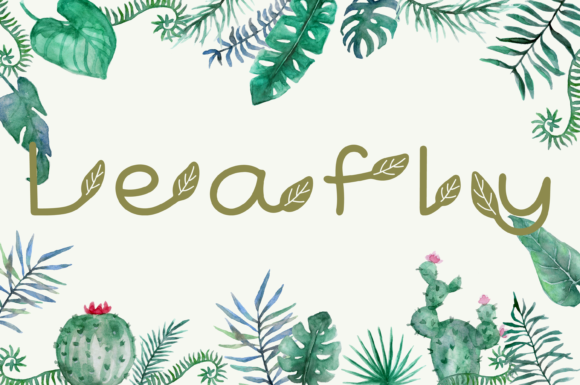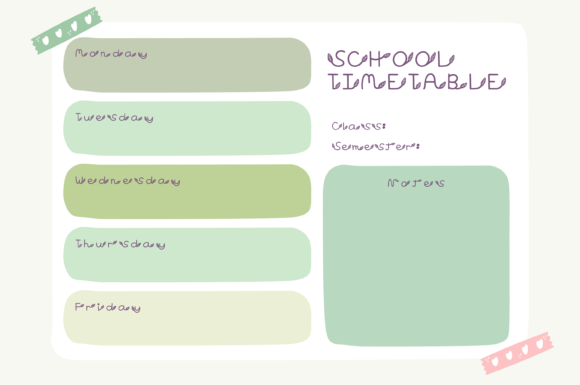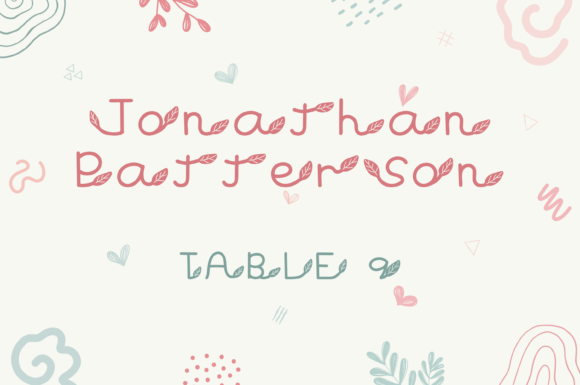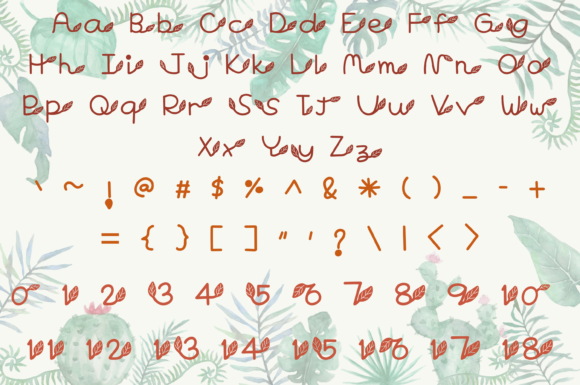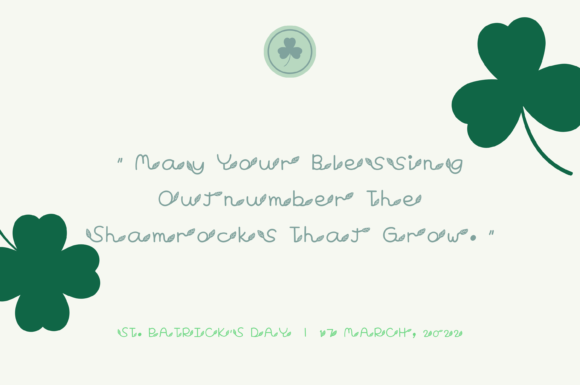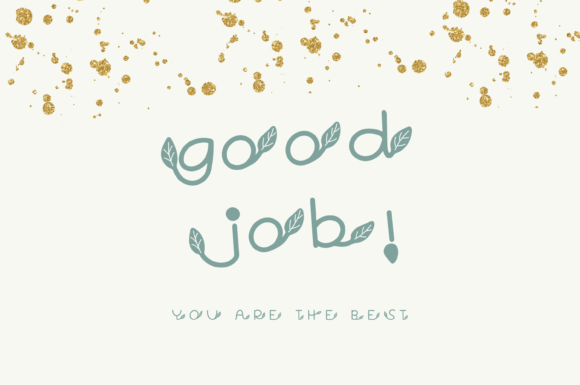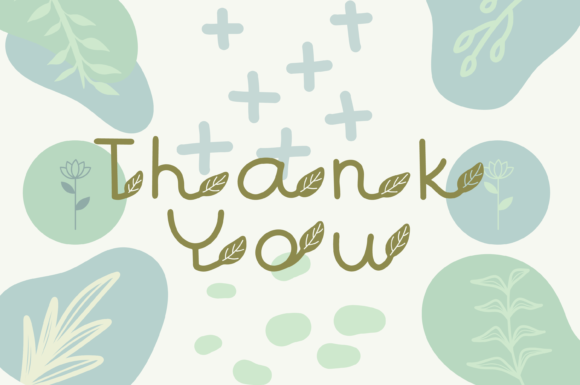
Leafly Minimal Style Font
About Leafly Minimal Style Font
Leafly Minimal Style is a delightful and artistic handwritten font that adds a touch of whimsy to your creative projects. Its paintbrush-inspired strokes give it a unique and playful appearance, making it a versatile choice for a wide variety of design endeavors. When you incorporate Leafly Minimal Style into your projects, you’ll quickly notice how it infuses them with a distinctive charm that sets them apart.
The whimsical nature of Leafly Minimal Style makes it well-suited for a diverse range of applications. Whether you’re working on branding, posters, social media graphics, merchandise, packaging, or any other design project, this font has the ability to effortlessly elevate your work and catch the eye of your audience.
With its handcrafted and organic feel, Leafly Minimal Style brings a sense of authenticity and warmth to your designs. This font can evoke a playful and lighthearted vibe, making it an excellent choice for projects that aim to create a friendly and approachable atmosphere.
Leafly Minimal Style’s versatility shines when it comes to matching it with different design elements. Its paintbrush-inspired strokes can harmonize with various illustrations, icons, and graphics, creating a cohesive and visually appealing composition. Whether you’re aiming for a minimalist aesthetic or a more intricate design, this font adapts and complements your creative vision.
Incorporating Leafly Minimal Style into your branding projects can give your visual identity a fresh and contemporary edge. Its handwritten character exudes authenticity, making your brand more relatable and memorable to your target audience.
For promotional materials, Leafly Minimal Style adds a playful touch that captures attention and conveys a sense of creativity. Whether it’s on posters, flyers, or banners, this font helps you create designs that stand out in a sea of visual noise.
On merchandise and packaging, Leafly Minimal Style can infuse a sense of joy and creativity. Its unique look ensures that your products and designs leave a lasting impression on customers.
When used on social media graphics, Leafly Minimal Style injects a sense of personality into your posts, helping you connect with your audience on a more personal level.
Overall, Leafly Minimal Style is a font that encourages experimentation and creativity. Its whimsical and paint brushed appearance opens the door to endless design possibilities, allowing you to breathe life into your projects and make them truly exceptional. So go ahead, add Leafly Minimal Style to your creative ideas, and watch how it transforms them into stand-out works of art!